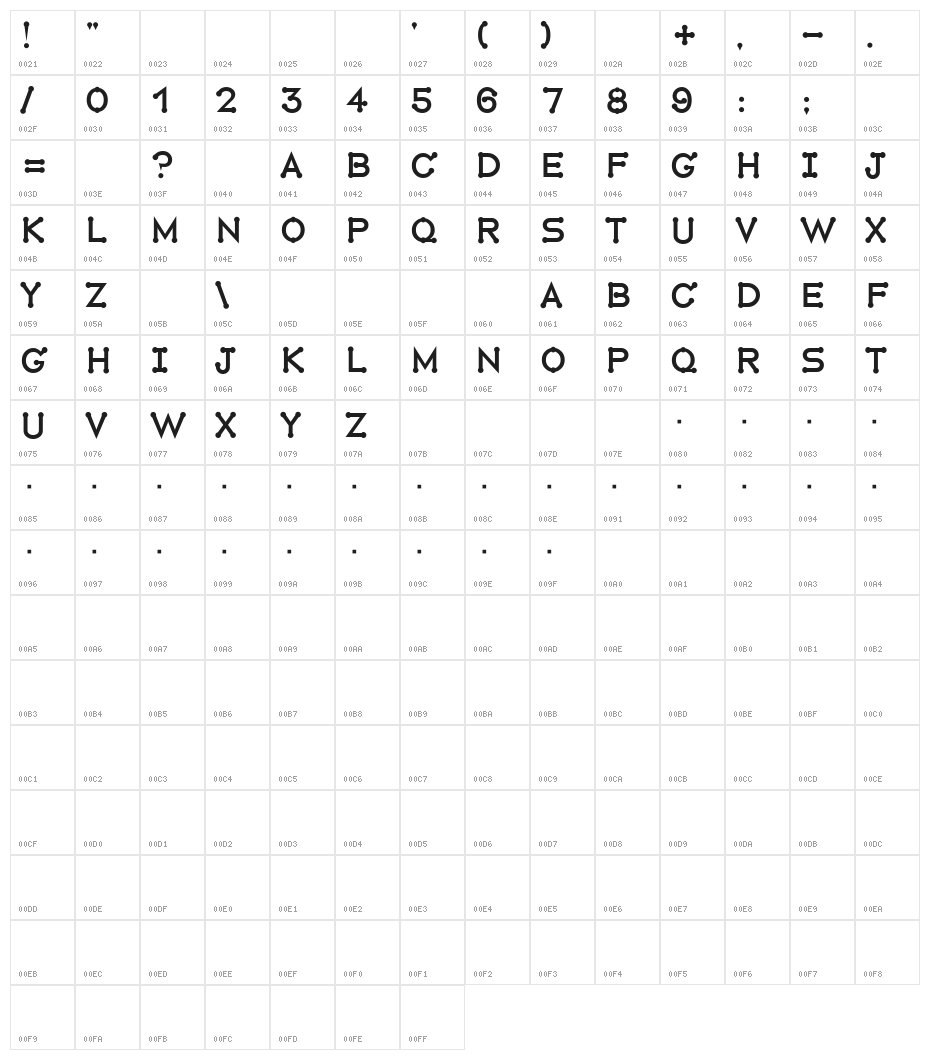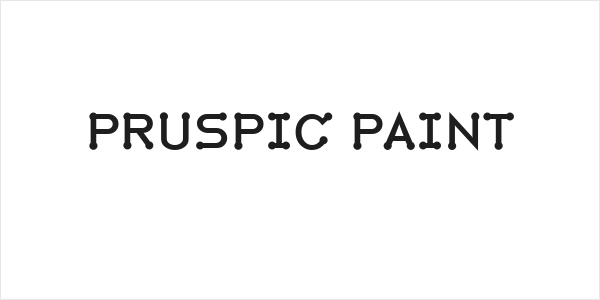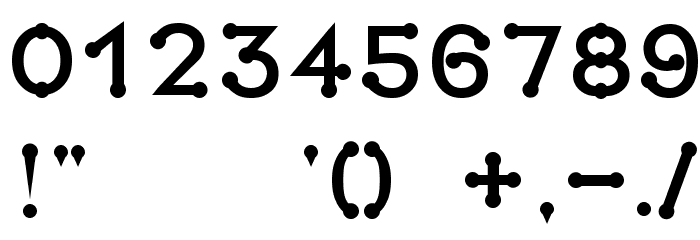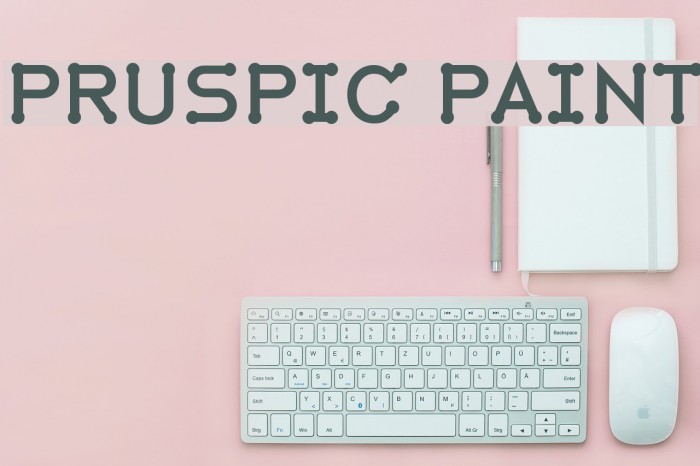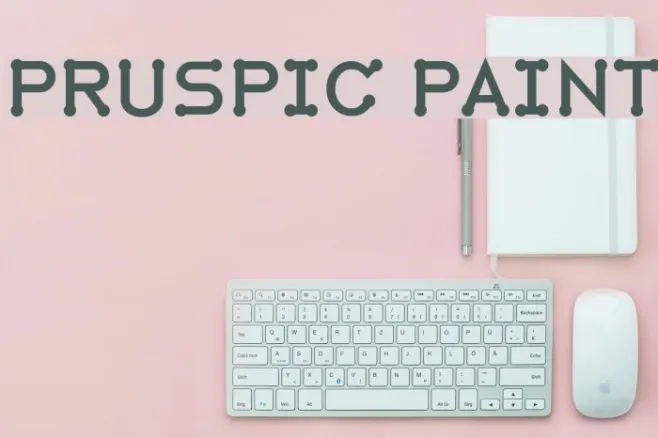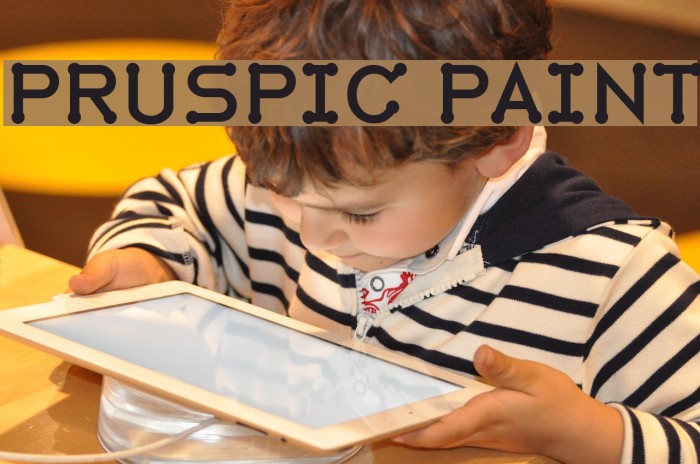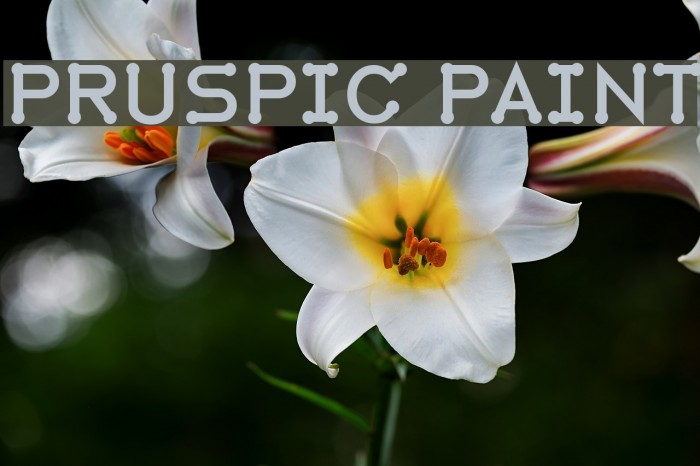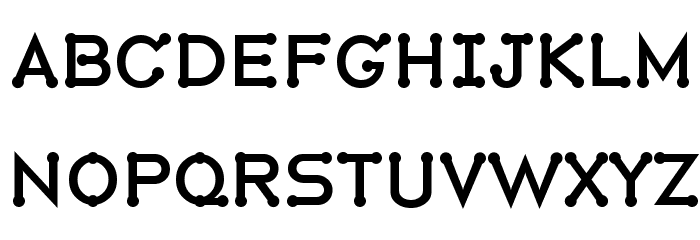
Pruspic Paint Font
Pruspic Paint Description
This font features a unique and playful design characterized by rounded terminals and a bold, uniform stroke width. The letters are evenly spaced, creating a harmonious and balanced appearance. The circular elements at the ends of each stroke give it a distinct, decorative look, making it stand out in any design. It maintains a consistent weight throughout, ensuring readability while adding a touch of whimsy. The numbers and special characters follow the same stylistic cues, ensuring a cohesive look across all text elements.
| Proposed Projects | Ideal for children's books, playful branding, posters, and creative projects that require a fun and engaging typeface. |